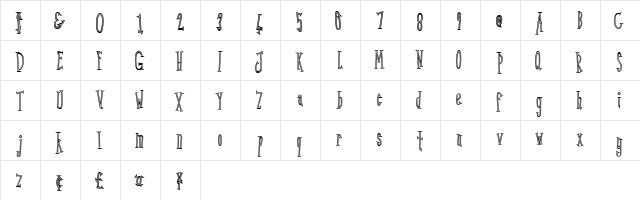
Kunang Kunang outline Regular
| Designer | cenz qobbal |
Design Context for Kunang Kunang outline Typeface
Kunang Kunang outline brings ornamental detail and strong personality to headlines and identities, where visual impact matters more than quiet functionality.
Font Pairing: Pair with a clean neutral sans-serif for body copy to let Kunang Kunang outline's character lead without overwhelming the composition.
Pro Tip: Treat Kunang Kunang outline as the centrepiece of your typographic hierarchy. One strong heading set in a decorative face can carry an entire layout.